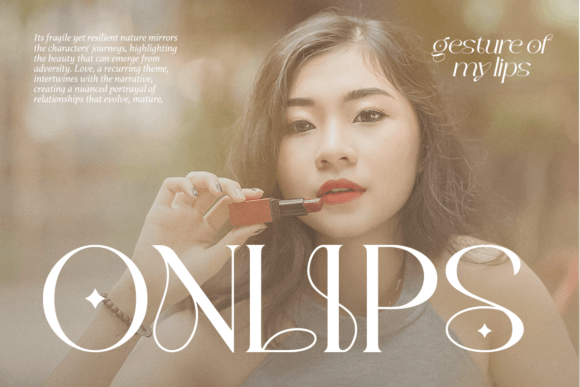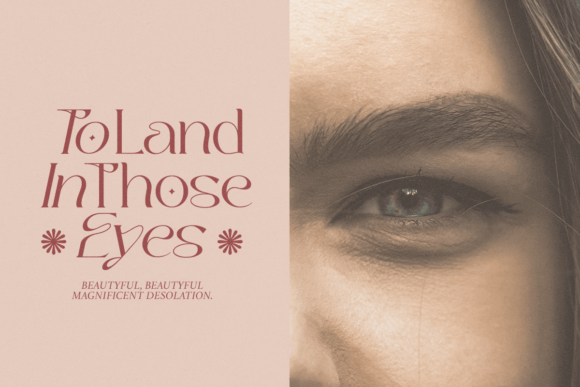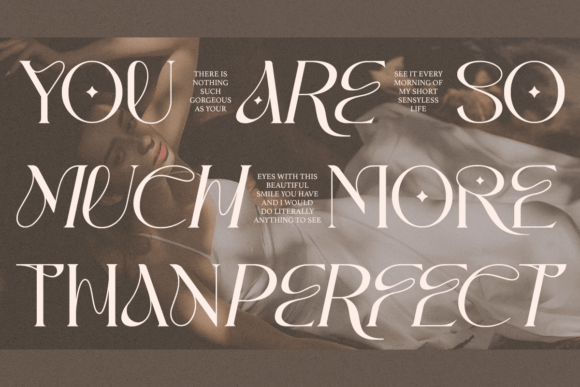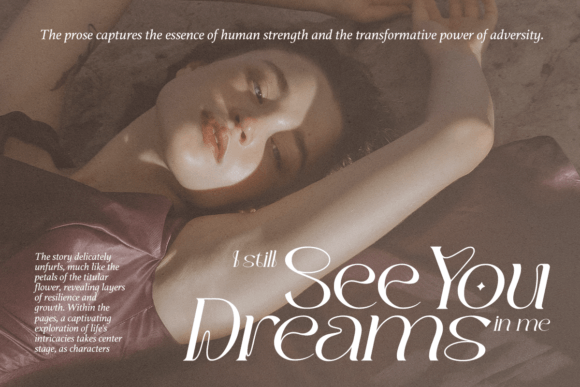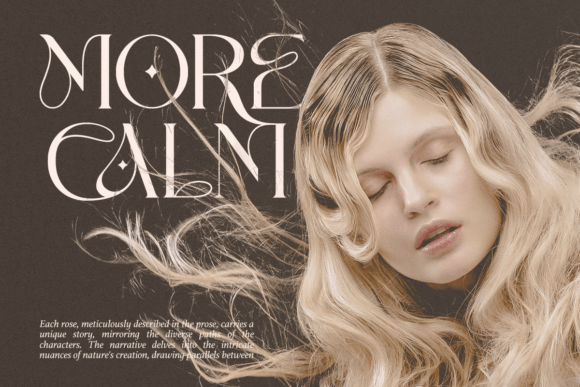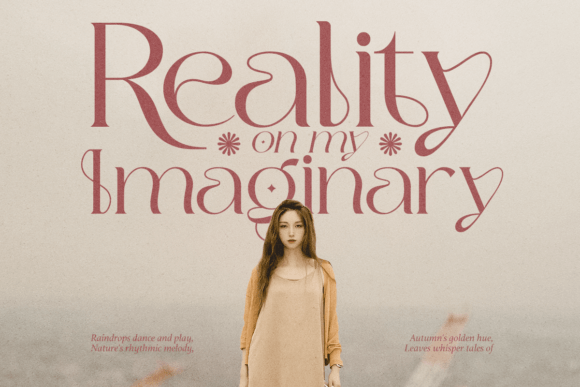
Introducing Calora Font: The Perfect Blend of Playfulness and Elegance
In the world of typography, fonts play a crucial role in conveying the tone and personality of a brand or design. For designers and crafters looking for a font that exudes elegance and sophistication, Calora Font is an excellent choice. This beautiful serif font strikes the perfect balance between playfulness and refinement, making it ideal for a wide range of applications.
The Unique Characteristics of Calora Font
Calora Font boasts a distinctive design that sets it apart from other serif fonts. Its curves are carefully crafted to tease the eyes, adding a touch of whimsy and playfulness to any design. Despite its playful nature, Calora maintains a classy composure, making it suitable for luxury brands, high-end editorial designs, and sophisticated marketing materials.
Ideal Applications for Calora Font
Calora Font’s versatility makes it perfect for various design projects, including:
- Elegant & Luxury Logos: Create a lasting impression with a logo that embodies sophistication and refinement.
- Classy Editorial Design: Elevate your magazine or publication with a font that exudes elegance and poise.
- Women’s Magazine: Add a touch of femininity and glamour to your publication with Calora Font.
- Fashion Brand: Perfect for fashion brands looking to convey a sense of luxury and style.
- Cosmetic Brand: Ideal for beauty and cosmetic brands seeking to create a sophisticated and alluring image.
- Fashion Promotion: Make a statement with promotional materials that showcase Calora Font’s elegance.
- Modern Advertising Design: Stand out in the world of advertising with a font that combines playfulness and sophistication.
- Invitation Card: Create beautiful and elegant invitation cards for special events.
- Art Quote: Add a touch of refinement to your art quotes and statements.
- Home Decoration: Use Calora Font to create beautiful typographic prints for home decor.
- Book/Cover Titles: Make your book or publication stand out with a font that exudes elegance.
- Special Events: Perfect for creating memorable and stylish event branding.
Why Choose Calora Font?
Calora Font offers a unique combination of characteristics that make it an excellent choice for designers and crafters:
- Unique Design: Calora Font’s distinctive curves and elegant lines set it apart from other serif fonts.
- Versatility: Suitable for a wide range of applications, from luxury logos to editorial design.
- Elegance: Conveys a sense of sophistication and refinement, perfect for high-end brands and designs.
- Playfulness: Adds a touch of whimsy and playfulness to any design.
Tips for Using Calora Font Effectively
To get the most out of Calora Font, consider the following tips:
- Pair with Neutral Colors: Combine Calora Font with neutral colors to create a sophisticated and elegant look.
- Experiment with Font Sizes: Play with different font sizes to create visual interest and hierarchy.
- Add Texture and Patterns: Incorporate texture and patterns to add depth and visual interest to your design.
Calora Font is a beautiful and versatile serif font that offers a unique blend of playfulness and elegance. Its distinctive design and classy composure make it perfect for a wide range of applications, from luxury logos to editorial design. Whether you’re a designer or crafter, Calora Font is an excellent choice for adding a touch of sophistication and refinement to your projects.